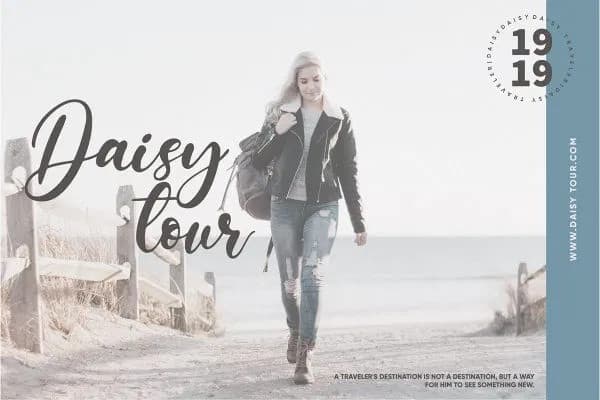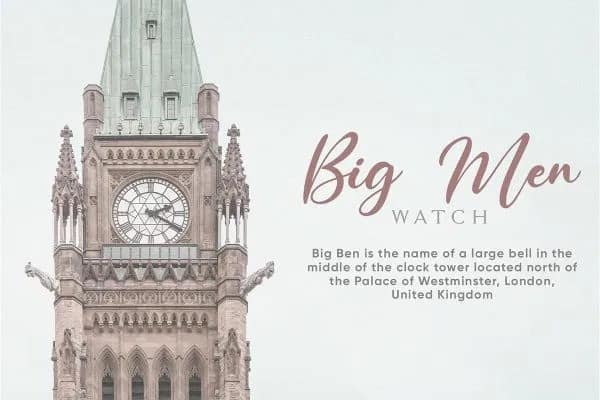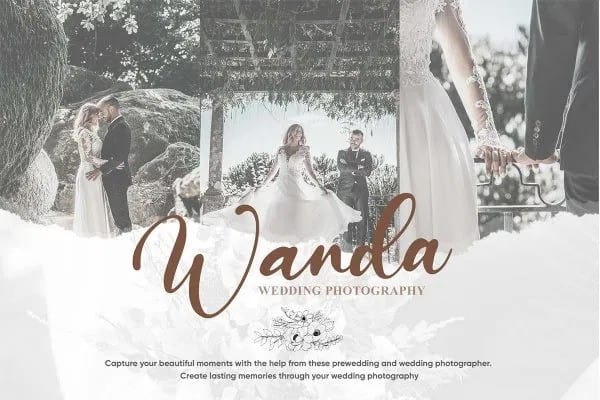
Meet. Sublimity Script Font is a font script that is made by hand with a natural hand writing. As you can see the flow of the bold and thin lines creates a perfect hand lettering just by typing on your keyboard! This beautiful calligraphy font is perfect for: branding, posters, cards, invitations, logos, DIY Cutting Machine projects, wall art, quotes, packaging, scrapbooking, greeting cards and even more!